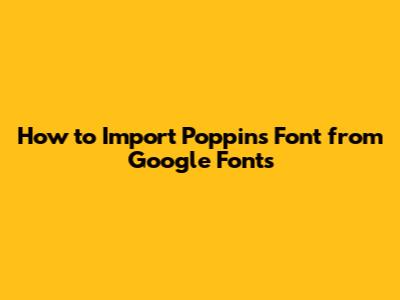
How To Import Poppins Font From Google Fonts
Hey guys! Ever wanted to give your website or project a sleek and modern look? One of the easiest ways to do that is by using cool fonts, and Poppins is definitely one of them! It's a super popular sans-serif font from Google Fonts that’s known for its clean and geometric design. In this article, I'll walk you through, step by step, on how to import the Poppins font from Google Fonts into your project. Whether you're building a website, designing a presentation, or creating social media graphics, adding Poppins can really elevate your design game. So, let's dive in and get this font working for you!
Why Choose Poppins Font?
Before we get into the how-to, let's quickly chat about why Poppins is such a great choice. Poppins is a versatile font that works well for headlines, body text, and everything in between. Its simplicity makes it easy to read on screens of all sizes, and its modern feel can give your project a contemporary edge. Plus, because it's part of Google Fonts, it's free to use and easy to implement! Choosing the right font can significantly impact the look and feel of your project. Poppins offers a balanced and modern aesthetic that can enhance readability and visual appeal. Its clean lines and geometric structure make it suitable for a wide range of applications, from websites and mobile apps to print materials and presentations. The font's versatility stems from its various weights and styles, allowing designers to create a cohesive and visually engaging design system. By incorporating Poppins into your design, you're not just adding a font; you're enhancing the overall user experience and reinforcing your brand's identity with a touch of contemporary elegance. Moreover, its open-source license ensures that you can use it freely without worrying about copyright issues, making it a practical and cost-effective choice for both personal and commercial projects. So, if you're looking to give your project a modern and polished look, Poppins is an excellent choice that combines functionality with aesthetic appeal.
Another way to import Poppins is directly in your CSS file using the @import rule. This method is less common but can be useful in certain situations.
Find the @import Code: On the Google Fonts website, after selecting your styles, choose the
@importoption instead of<link>. You’ll see a code snippet like this:@import url('https://fonts.googleapis.com/css2?family=Poppins:wght@400;700&display=swap'); -
Paste into Your CSS: Paste this line at the very top of your CSS file. It's crucial to place the
@importstatement at the very beginning of your CSS file, before any other styles or rules. This ensures that the font is loaded before the browser starts rendering the page, preventing potential issues like the "flash of unstyled text" (FOUT) effect. If the@importstatement is placed after other CSS rules, the browser may not load the font in time, resulting in a jarring visual experience for the user. Additionally, placing the@importstatement at the top of the file helps to maintain a clear and organized structure, making it easier to manage and maintain your CSS code. Remember to include the entire URL provided by Google Fonts, including theurl()function and the single quotes around the URL. A missing or incorrect character can prevent the font from loading properly. By following these guidelines, you can ensure that the Poppins font is seamlessly integrated into your website using the@importmethod, enhancing its overall design and user experience. -
Use in Your CSS: Just like with the
<link>method, usefont-family: 'Poppins', sans-serif;in your CSS rules to apply the font. Once you've imported the Poppins font using the@importstatement, you can apply it to your desired elements by specifying thefont-familyproperty in your CSS rules. The syntax is the same as with the<link>method:font-family: 'Poppins', sans-serif;. This tells the browser to use the Poppins font if it's available, and if not, to fall back to a generic sans-serif font. You can apply this CSS rule to individual elements, such as headings, paragraphs, or buttons, or you can apply it to the entire body of your website to set a global font. For example, to apply Poppins to all paragraphs, you would use the following CSS code:p { font-family: 'Poppins', sans-serif; }. Similarly, to apply it to the entire body, you would use:body { font-family: 'Poppins', sans-serif; }. Remember to adjust the font size, line height, and other typography properties to ensure that the text is legible and visually appealing. Experiment with different font weights and styles to create a cohesive and engaging design. By using CSS effectively, you can seamlessly integrate the Poppins font into your website and create a professional and modern look. Don't forget to test your website on different devices and browsers to ensure that the font is rendering correctly and consistently across all platforms.
And that's it! You now know three different ways to import the Poppins font into your project. Whether you choose the simplicity of the Google Fonts CDN, the directness of the @import method, or the control of hosting locally, Poppins is sure to add a touch of modern elegance to your designs. Happy designing, and I hope this was helpful, guys! Remember, each method has its pros and cons, so choose the one that best fits your needs and technical skills. Using the Google Fonts CDN is the easiest and fastest way to import the Poppins font, as it requires minimal setup and ensures that the font is always up-to-date. However, it relies on a third-party service, which may not be ideal for privacy-conscious projects. The @import method is also relatively simple, but it can potentially slow down your website's loading time if the @import statement is placed after other CSS rules. Hosting the font locally gives you the most control over the font files and ensures that they are always available, even if the Google Fonts CDN is down. However, it requires more setup and maintenance, and you need to ensure that your server is configured to serve the font files with the correct MIME types. No matter which method you choose, remember to test your website on different devices and browsers to ensure that the font is rendering correctly and consistently across all platforms. By carefully considering the pros and cons of each method and choosing the one that best fits your needs, you can seamlessly integrate the Poppins font into your website and create a professional and modern look.